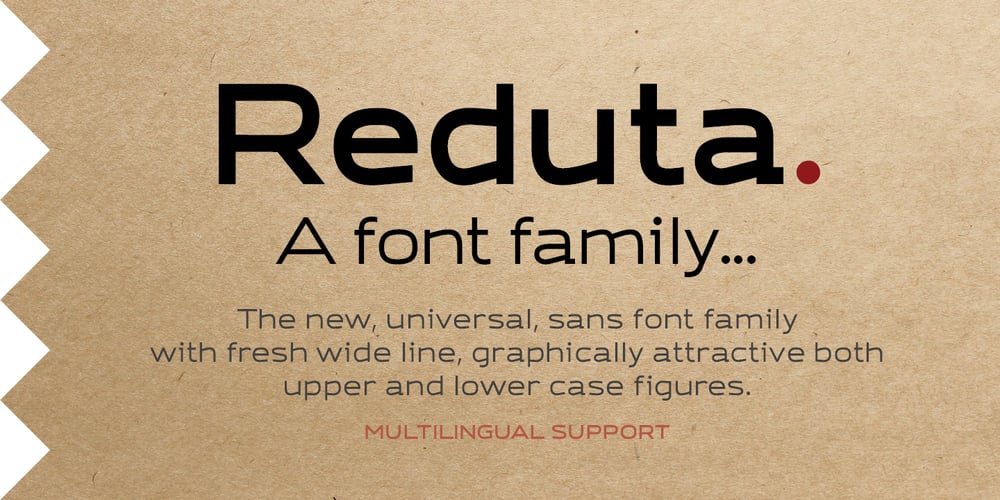
Reduta Font Family was designed by Adam Ryszewski and published by Vertigo. Reduta contains 2 styles and family package options. Reduta is a new, modern font family, with fresh wide line, graphically attractive both upper and lower case letters. Spaced and mastered for optimal readability, Reduta plays well in a wide range of projects and applications. The typeface comes with a wide character set and provide multilingual support.